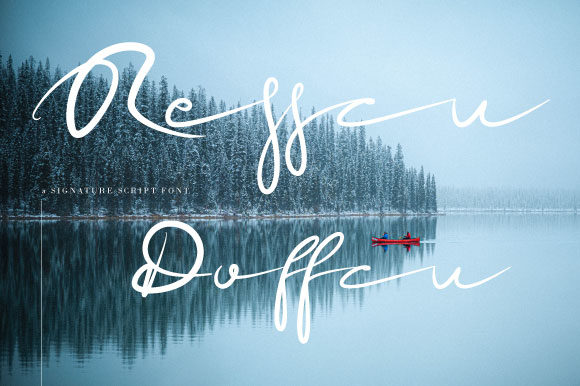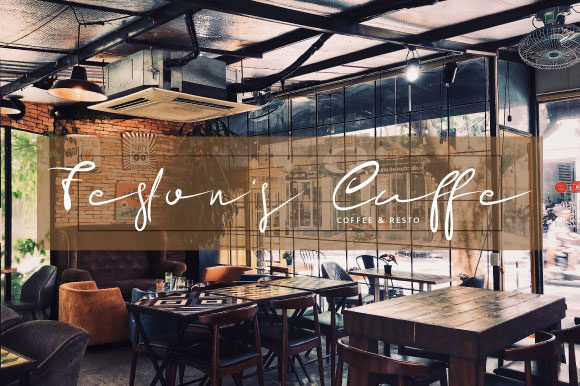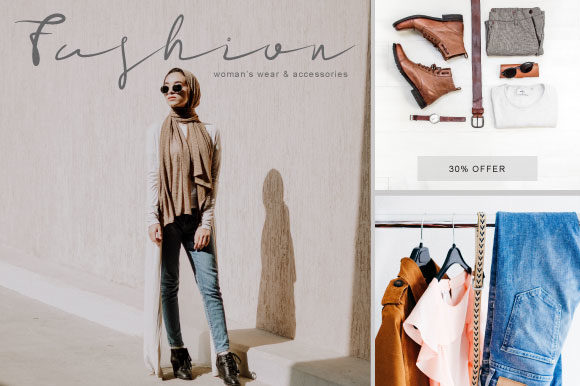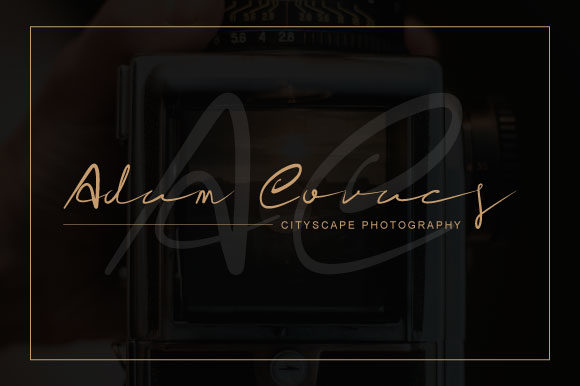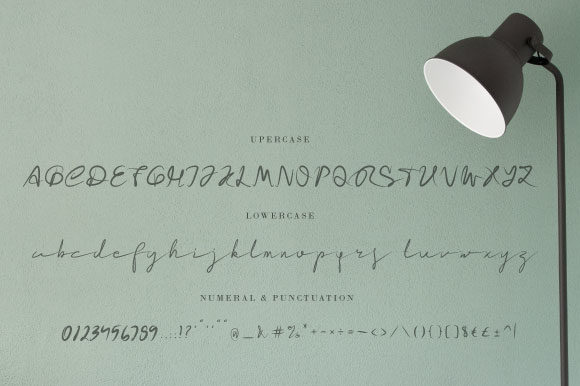
Resscu Doffcu Font
About Resscu Doffcu Font
Resscu Doffcu is a simple, yet elegant handwritten font that will easily take any design project to the next level. Get inspired by its unique charm!